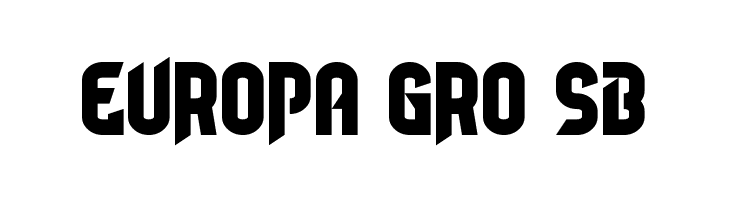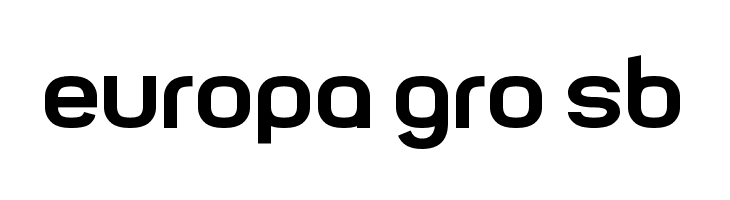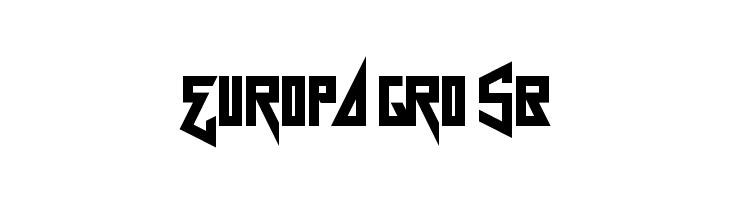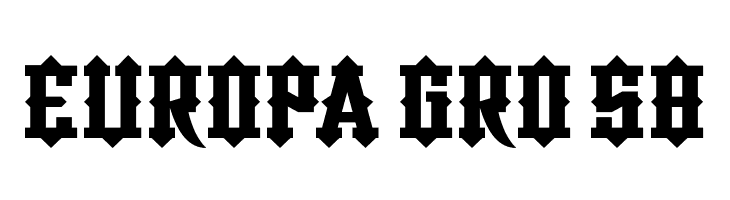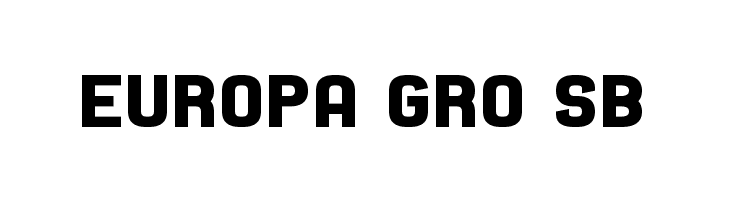
Swiggity Font
A bold, geometric font with sharp angles and high contrast, reminiscent of Gothic styles.
Swore-Games Font
A bold, geometric font with a modern, industrial design.
TalkingBaseball Font
A bold, vintage-style font with a rugged, hand-painted look.
Technoma Font
A bold, modern font with a strong geometric structure and rounded edges.
The Blacklist Font
A bold, cursive font with elegant loops and a dynamic flow.
THE CHIQUITAS Font
A bold, dynamic serif font with a slightly condensed and elegant style.
The Life of Flight Font
A bold, angular font with a modern, geometric style.
The Light Brigade Font
A bold, geometric font with a futuristic, segmented design.
The Messenger Regular Font
A bold, geometric font with a futuristic and modern design.
The Nineties Called They Want Their Font Back Font
A bold, futuristic font with sharp angles and geometric shapes.
The Wild Breath of Zelda Font
A bold, fantasy-inspired font with sharp, angular edges and a distressed look.
Thoroughbred Font
A playful, handwritten font with rounded, uniform strokes.
Thumbs Down Font
A bold, geometric font with a futuristic and tech-inspired design.
Tinsel Christmas Font
A bold, textured font with a distressed, tinsel-like appearance.
Trendgetter Font
A bold, high-contrast font with tall, narrow letterforms and a modern yet vintage feel.
Underwear Protest Font
A bold, blackletter-inspired font with a modern gothic style.
Urgently Regular Font
VeganAbattoir Font
A bold, modern sans-serif font with strong geometric influences.
Vermin Vibes 4 Font